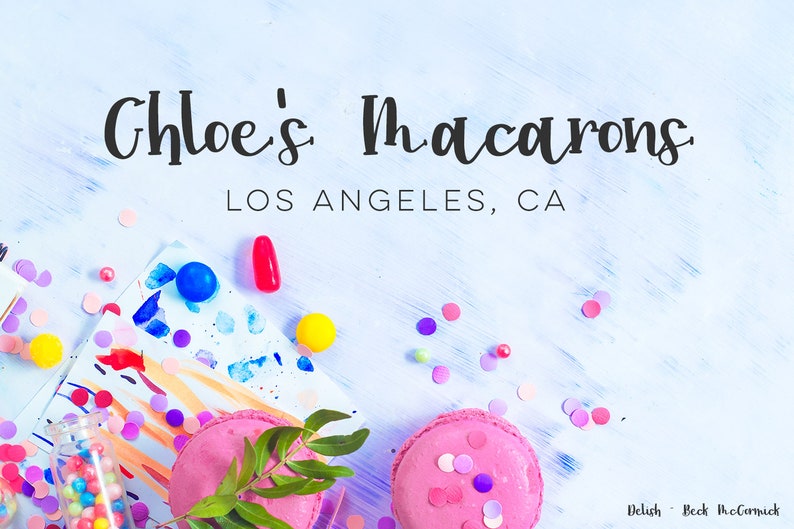
The fonts are available in three weights: It's much too messy to try to use more than one. Outstretched pod forms suggest rapid horizontal movement. This font is a cross between brush and script. Script fonts are ideal for logos and branding as well as with advertising, wedding invitations, packaging, labels, and other areas of short text.
Create that authentic handcrafted feel with the lovely contaur typeface.
Fonts centric ssi in standard category Download free font ethnocentric by typodermic fonts from category sci fi A bad font choice can send wrong messages, strain the eyes, and affect blog engagement. The outline shapes of the characters were derived from the font mafuta. Read the license agreement for details. The wrong font can spell disaster for a business. A design based on monotype 20th century, which was drawn by sol hess between 1936 and 1947. Instant access to 10,000 fonts. Script fonts or sans serif fonts are a better choice. About the product ecentric is a bold font inspired by the vintage style of letters on posters, bagde, packaging, labels from antiquity. It's much too messy to try to use more than one. This font is a cross between brush and script. Download centric ssi boldtruetype font.